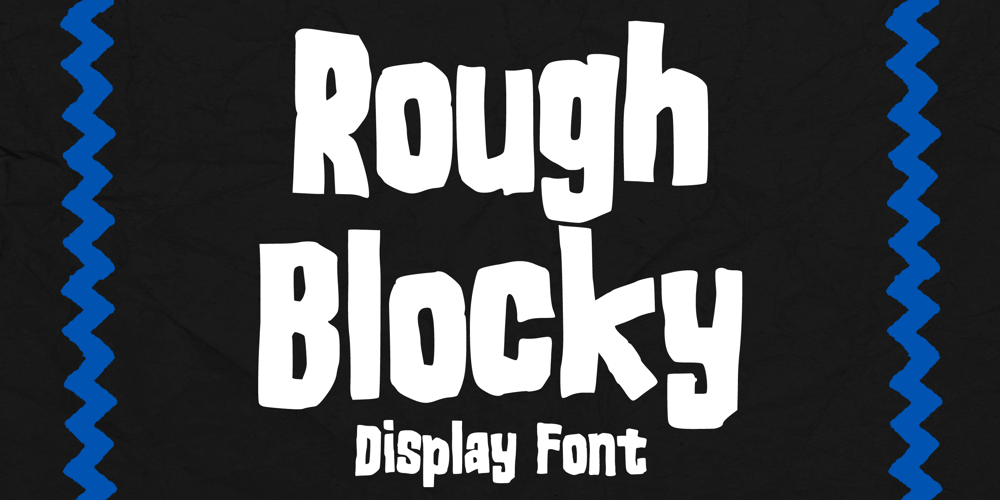
Rough Blocky Font Family was designed by Gabriel Valentinus and published by Mvmet. Rough Blocky contains 1 styles and family package options. Rough Blocky is a versatile and playful to use handwritten font, inspired by 90s street art, 90s music and scenes. It will elevate a wide range of design projects to the highest level. You can use this font for many design ideas such as stickers, t-shirt designs, amazing logo designs, magazine or book covers, comics, cartoon drawings, daily typing, and many more. This font will add a super cool touch to your designs!